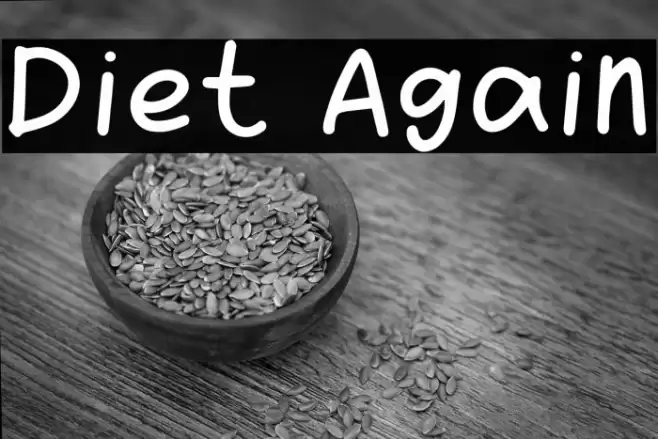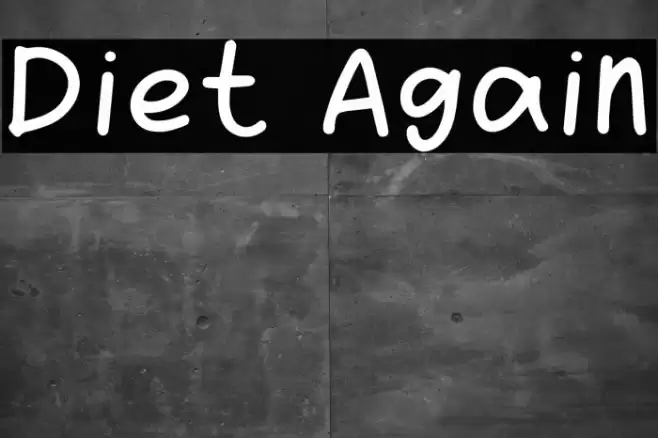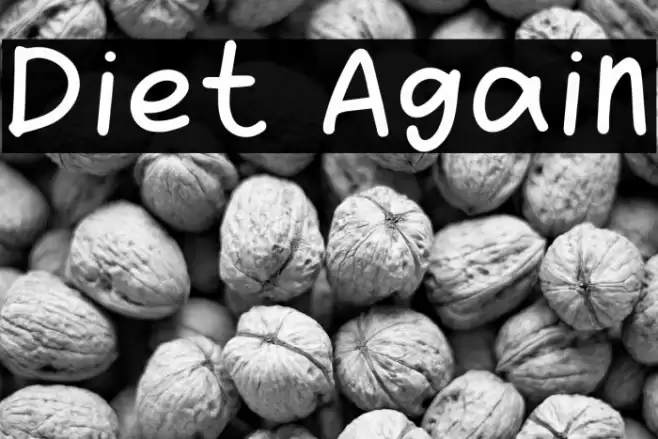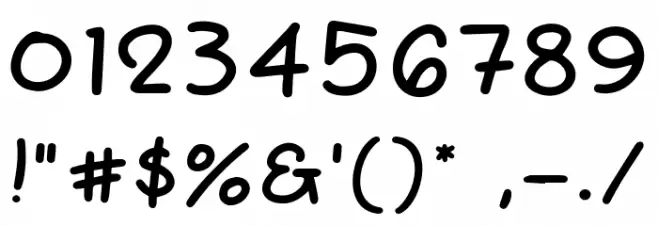
Diet Again Font
Diet Again Description
This playful and casual font features a handwritten style with smooth, rounded edges and a friendly appearance. The characters are slightly irregular, giving it a natural and organic feel. The uppercase and lowercase letters maintain a consistent height, while the numerals and special characters blend seamlessly with the overall style. The font's informal nature makes it ideal for projects that require a personal touch, such as greeting cards, children's books, or playful branding materials. Its legibility and charm make it versatile for both digital and print media.
A playful, handwritten font with smooth, rounded edges and a friendly appearance from Regular fonts.
- Font: Diet Again
- Proposed Projects: Ideal for greeting cards, children's books, playful branding, and personal projects.
- Overall Style: Casual
- Use Case: Greeting cards, Children's books, Playful branding